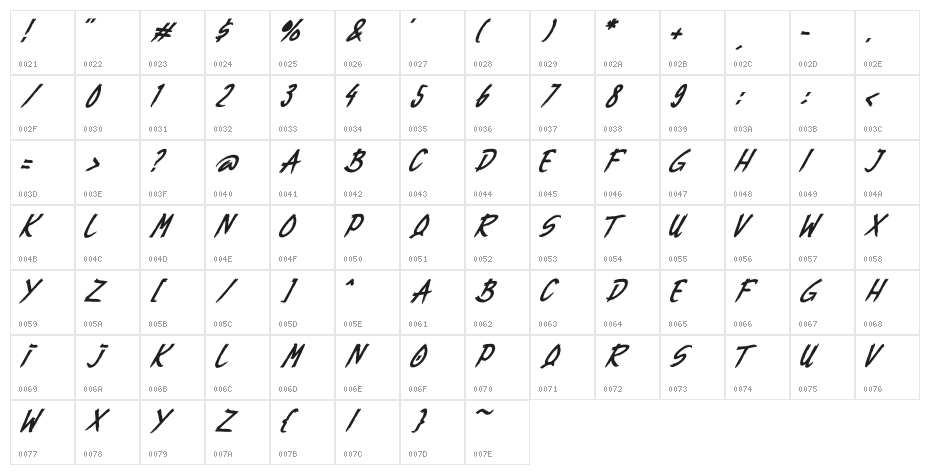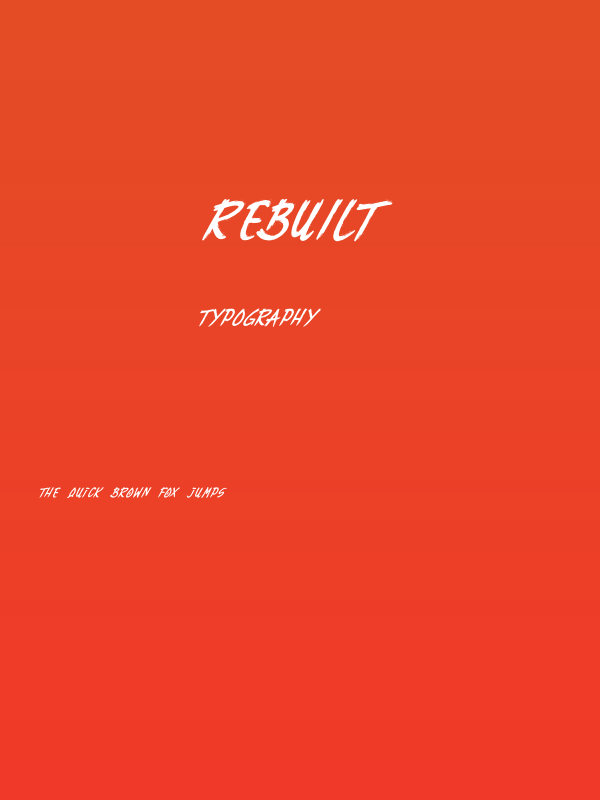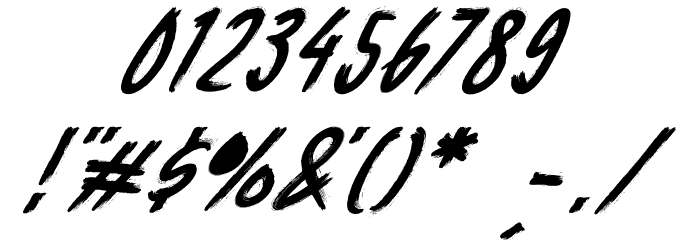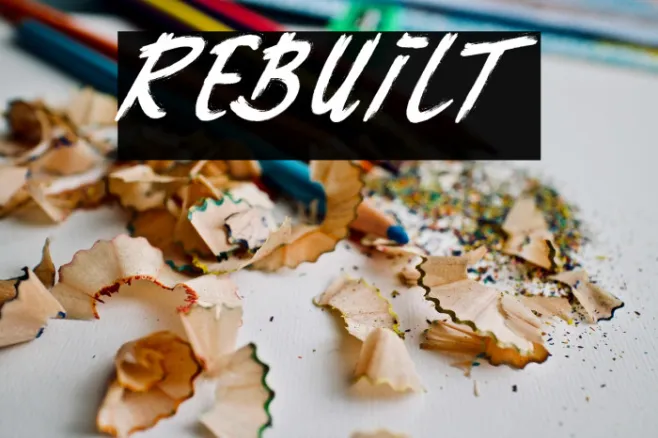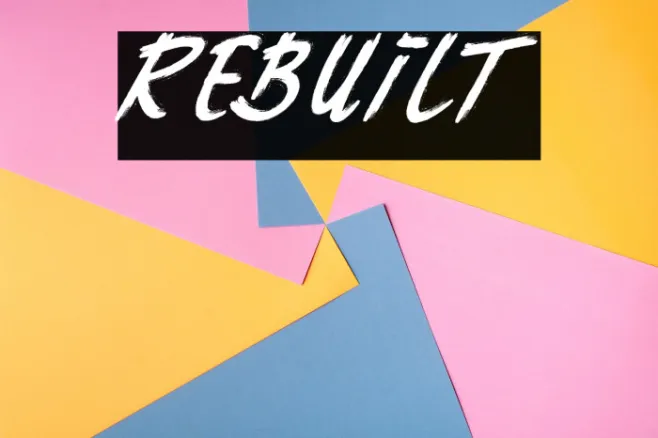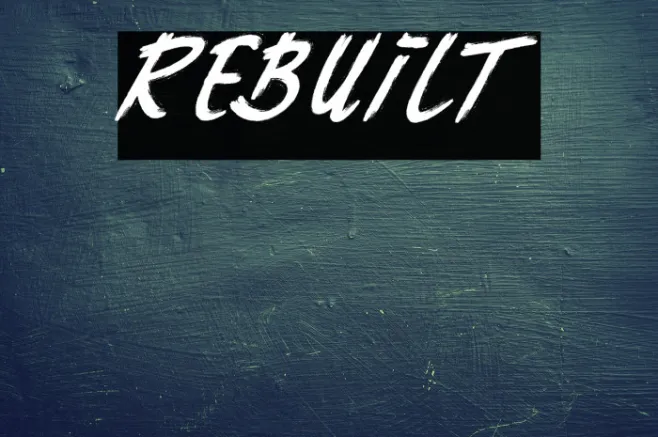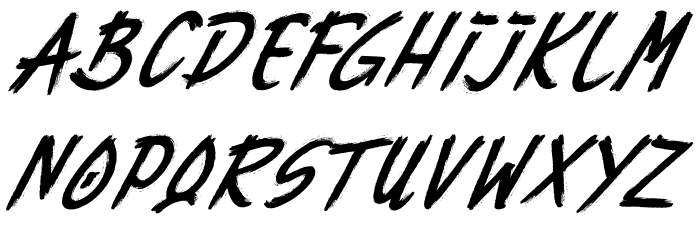
Rebuilt Font
Rebuilt Description
This font exudes a bold and dynamic energy, characterized by its brush-like strokes and slightly slanted characters. The uppercase and lowercase letters maintain a consistent style, with sharp edges and a sense of movement that suggests speed and fluidity. The numbers and special characters follow the same energetic design, making them stand out with their bold presence. The overall appearance is both artistic and modern, suitable for projects that require a touch of creativity and flair.
| Proposed Projects | Ideal for branding, posters, and creative projects that require a bold and artistic touch. |